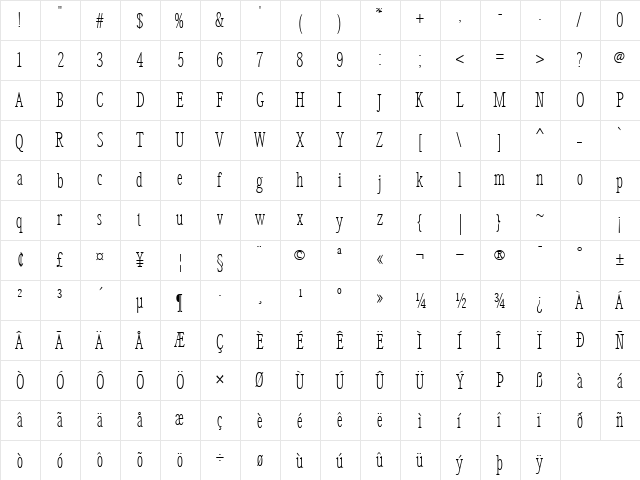
Good Regular Font Preview
Good Regular
Design Context for Good Typeface
Good is a composed and adaptable typeface that performs quietly and consistently across a wide range of design contexts.